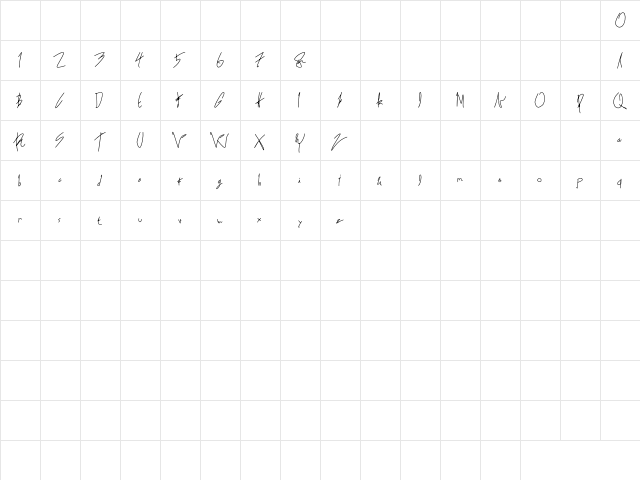
alexandria ann Regular
| Designer | helmi dhoan |
Design Context for alexandria ann Typeface
alexandria ann is a composed and adaptable typeface that performs quietly and consistently across a wide range of design contexts.